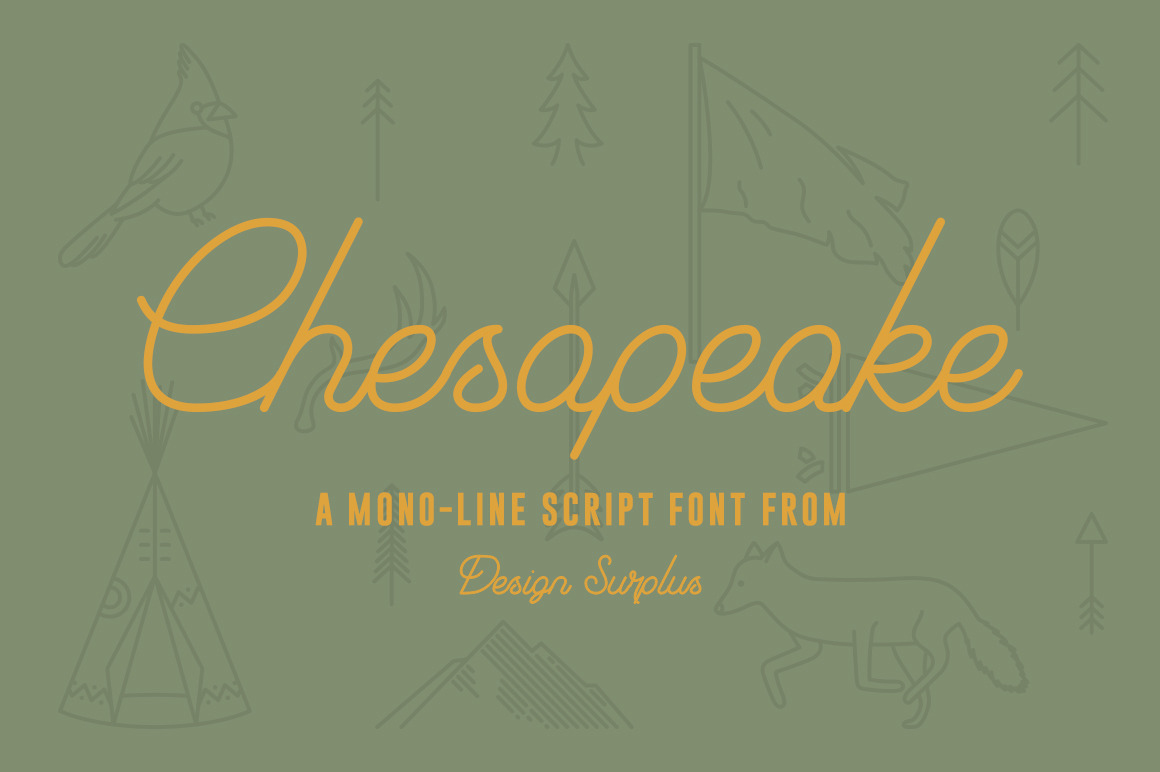
Chesapeake Script Font
Chesapeake is a new mono-line script font from Design Surplus. Chesapeake consists of 139 glyphs including 48 accented glyphs for use in a number of different languages. You also get 14 bonus icons to compliment Chesapeake's mono-line design style.